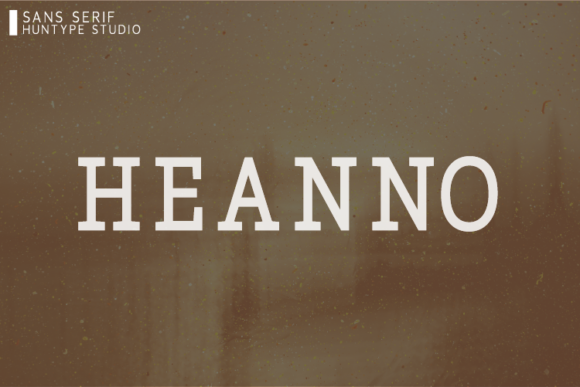
Welcome to the world of Heanno, an exquisite serif font family crafted to redefine your design horizons. Dive into a realm where elegance and versatility intertwine, creating a symphony of visual harmony. With Heanno, your designs will soar to new heights, captivating audiences with its timeless beauty and effortless charm. Experience the transformative power of Heanno and unveil a world of limitless creative possibilities.
Heanno's meticulously crafted characters embody the essence of sophistication, inviting readers to immerse themselves in a journey through the realms of typography. Each letterform is a testament to precision, adorned with delicate serifs that dance across the page like ballet dancers. Whether you're crafting a timeless masterpiece or a modern marvel, Heanno seamlessly adapts, imbuing your words with an aura of distinction.
Beyond its aesthetic allure, Heanno is a font of unmatched versatility. Its adaptability shines through in a myriad of design applications, from captivating logos and branding materials to stunning editorial layouts and web designs. Let Heanno be your muse as you weave tales that resonate with readers, creating a lasting impact that transcends time.
Unleash your creativity and embark on a visual odyssey with Heanno. Its intuitive nature beckons you to explore the depths of your imagination, transforming ordinary words into extraordinary expressions. Whether you're a seasoned designer or just starting your creative journey, Heanno empowers you to express yourself with clarity and confidence. Experience the joy of seamless composition, where words flow effortlessly from your fingertips, guided by the grace of Heanno.
As a creation of Huntype, Heanno embodies the essence of innovation and craftsmanship. It stands as a testament to their dedication to creating fonts that inspire and empower designers worldwide. Join the ranks of those who have embraced Heanno's allure, and elevate your designs to the pinnacle of excellence. Embrace the boundless possibilities that await you and unlock the true potential of your creative vision.